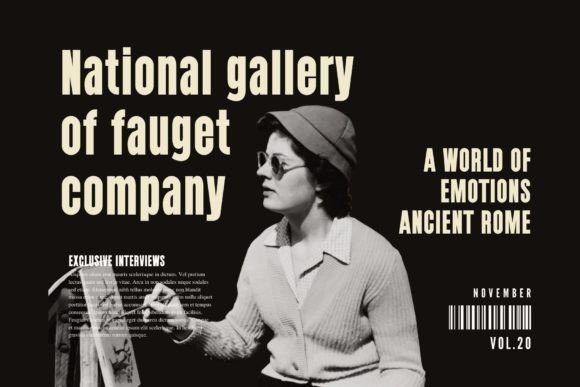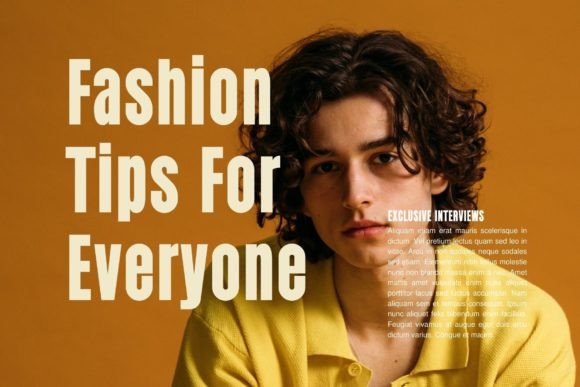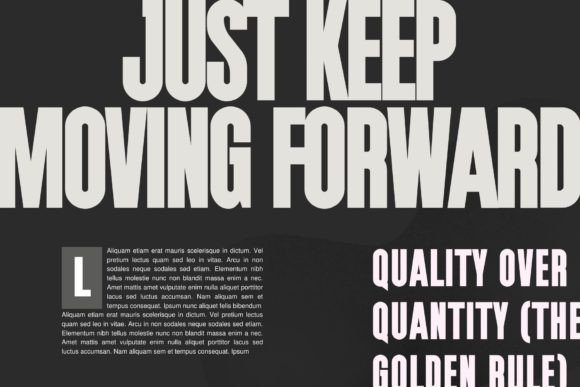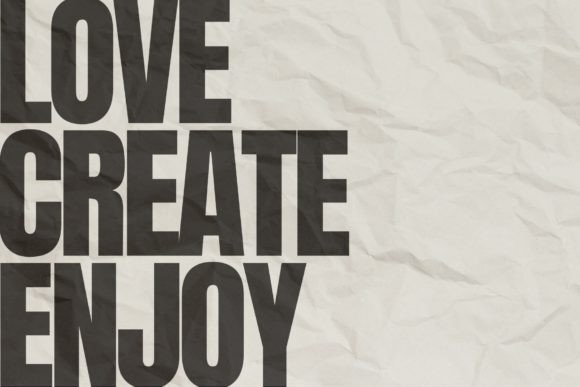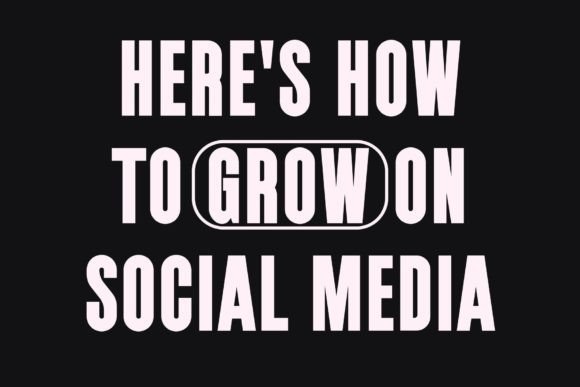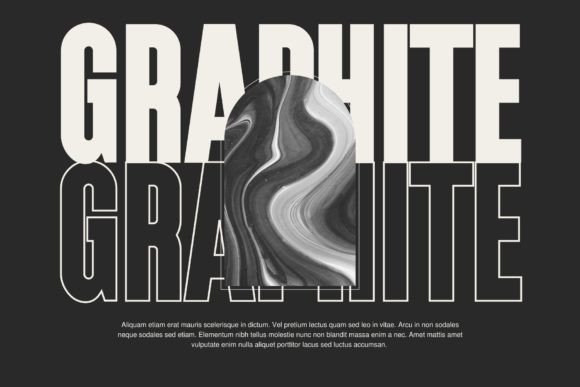
Unlocking the Magic of Modern Design: Amazing Paradise Font
Have you ever stumbled upon a font that instantly sparks your creativity and transports you to a world of endless possibilities? For designers, this is often the moment when inspiration strikes, and the perfect font is discovered. For me, it was the moment I laid eyes on the Amazing Paradise Font – a modern sans-serif font that embodies the essence of contemporary style and adventure.
This sleek and sophisticated font is perfect for branding, headlines, and display purposes, adding a touch of modernity and elegance to any design project. With its clean and minimalist letterforms, Amazing Paradise Font is a valuable asset for designers who crave versatility and legibility in their designs. Whether you’re working on a digital or print project, this font ensures a captivating and impactful visual experience.
- Unique Characteristics: The Amazing Paradise Font features a unique blend of tropical and whimsical elements, making it ideal for travel, leisure, and lifestyle-related designs.
First off, I have to say that I was really excited to dive into the “Amazing Paradise Font” – the combination of tropical vibes and elegant typography sounded like a match made in heaven! ✨ And, for the most part, I’m not disappointed. The font does bring a unique, carefree feel to my designs, which is exactly what I was looking for.
- ✨ Unique and playful style that’s perfect for travel, wellness, or lifestyle brands
- ✨ Wide range of languages supported, making it a great option for international projects
- ✨ Works well with a variety of design elements, from watercolor illustrations to bold graphics
However, there are a few areas where the font falls short: ⚠️
- ⚠️ Limited customization options, which can make it feel a bit restrictive for more complex designs
- ⚠️ Not ideal for formal or corporate projects, as the font’s playfulness might come across as unprofessional
Overall, I’d say the “Amazing Paradise Font” is a great choice for designers looking for a fun, laid-back vibe in their projects. While it may not be the most versatile option, it’s definitely a unique and eye-catching addition to any design arsenal.
Getting the Most Out of the Font
To get the most out of the Amazing Paradise Font, use it in combination with bright, pastel colors and whimsical illustrations. This font is perfect for creating eye-catching travel brochures, social media graphics, and children’s book covers.
The Amazing Paradise Font is ideal for:
– Travel and tourism marketing materials
– Children’s book covers and illustrations
– Social media graphics and advertisements
– Whimsical and playful branding materials
Alternatives to Amazing Paradise Font
Pacifico is a beautiful script font that works well for designing wedding invitations, greeting cards, and other creative projects. It has a similar elegant and romantic feel to Amazing Paradise Font, but with a more refined and sophisticated look.